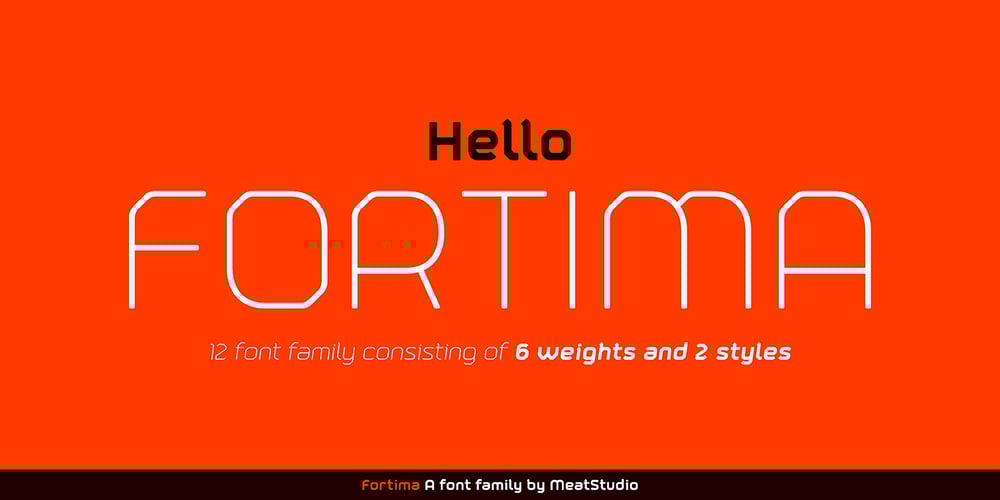
Fortima Font Family was designed by Stew Deane and published by Meat Studio. Fortima contains 12 styles and family package options. Fortima is a 12 style angular sans serif that utilises subtle modular shapes, designed by Stew Deane. The result is a font with character that adapts to a variety of sectors and brands, and is suitable for anything from advertising and branding to web and screen. The angular shapes help create a unique aesthetic that are instantly recognisable and have impact and character in large or small sizes.